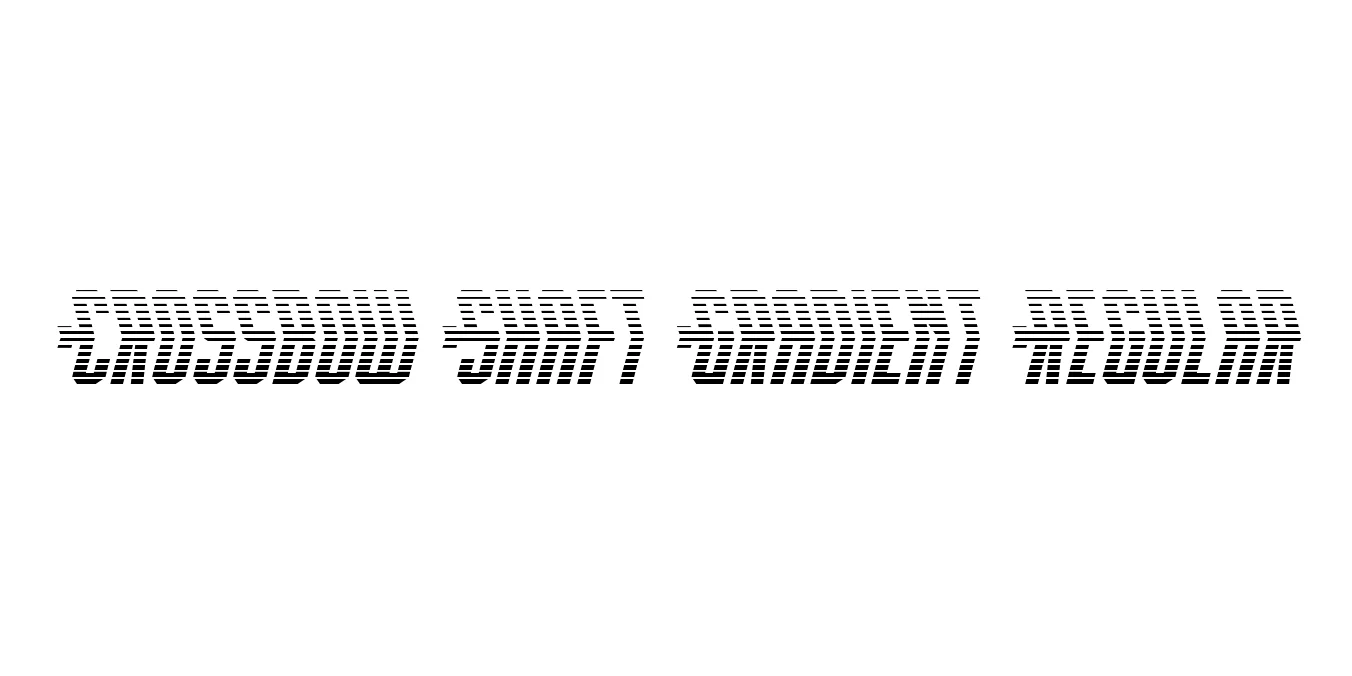
Crossbow Shaft Gradient Regular
Designed by Iconian Fonts (Dan Zadorozny)
Crossbow Shaft Gradient Regular is a high-octane display typeface designed to capture the essence of speed, technology, and precision. Part of a larger typographic system, this gradient-specific variant provides an inherent sense of depth and three-dimensionality, allowing designers to create striking visual hierarchies without the need for additional post-processing effects.
The font is characterized by its wide, geometric letterforms and sharp, angular terminals that reflect a modern, industrial aesthetic. Over the years, it has become a popular choice for sci-fi themes, professional athletics, and digital interfaces, offering a unique blend of legibility and aggressive styling that commands attention in any layout.
Crossbow Shaft Gradient Regular Best Uses
Perfect for e-sports branding and high-energy game titles.
Ideal for jersey numbers and team apparel that require a dynamic look.
Great for science fiction or action-themed cinematic marketing.
Used for bold headlines in startups and innovation-led platforms.